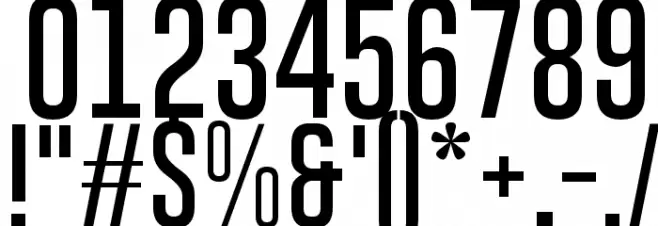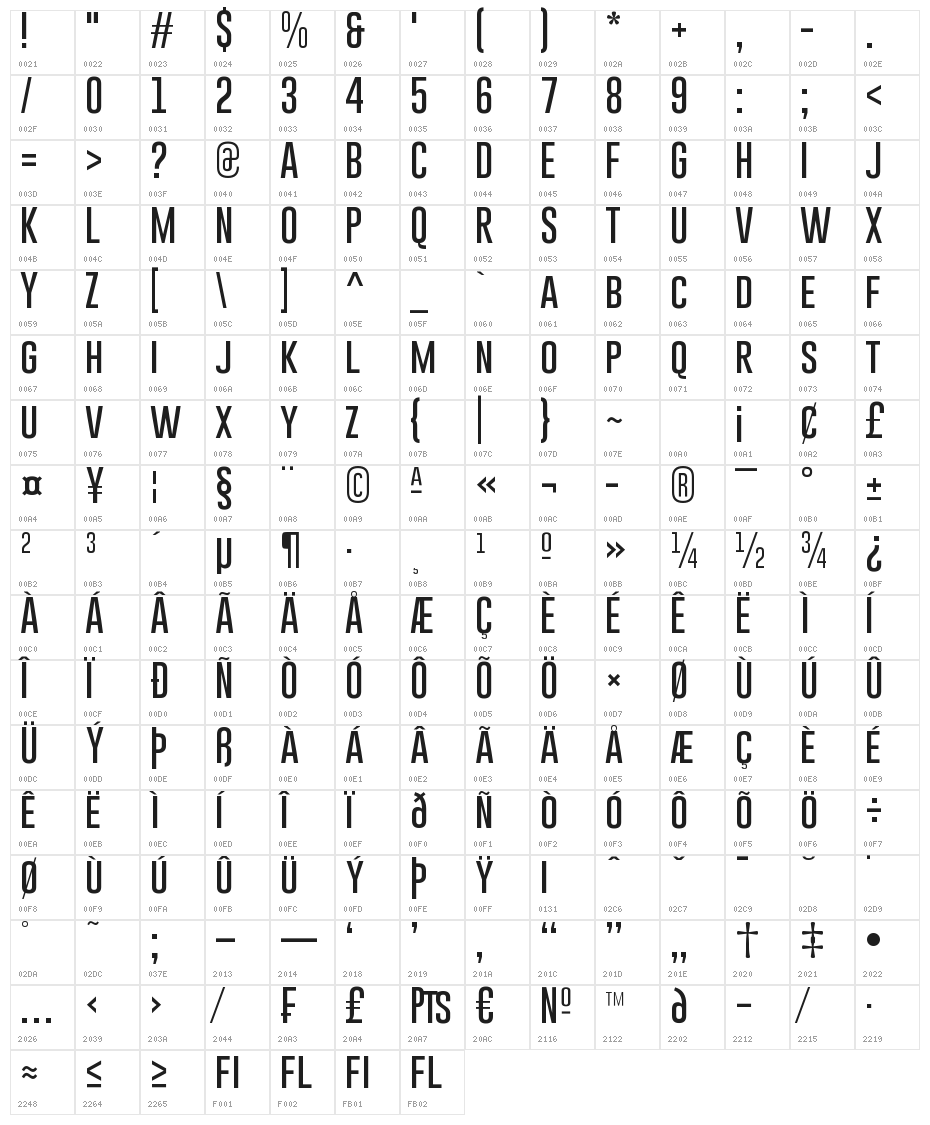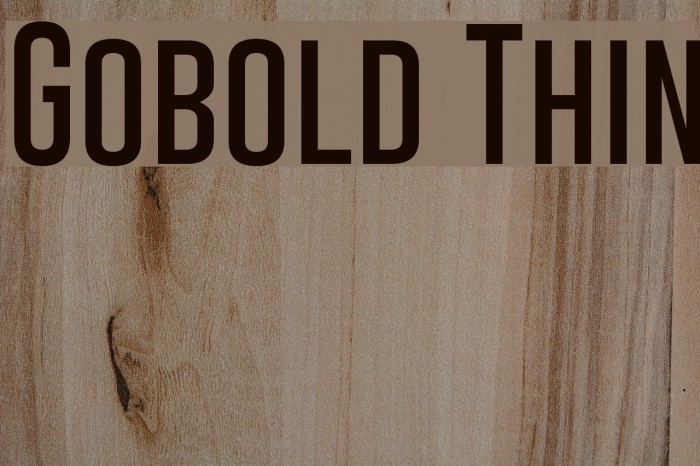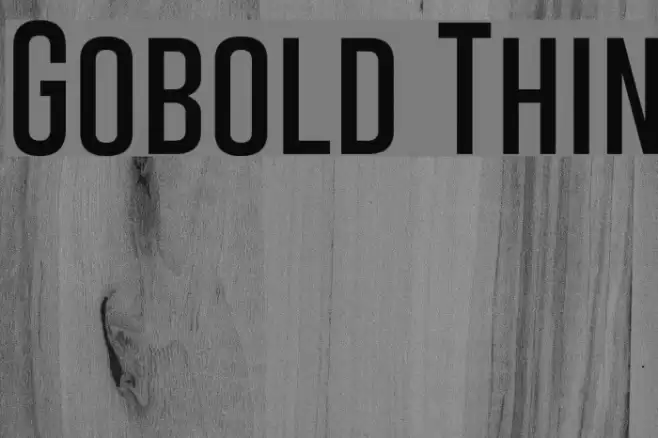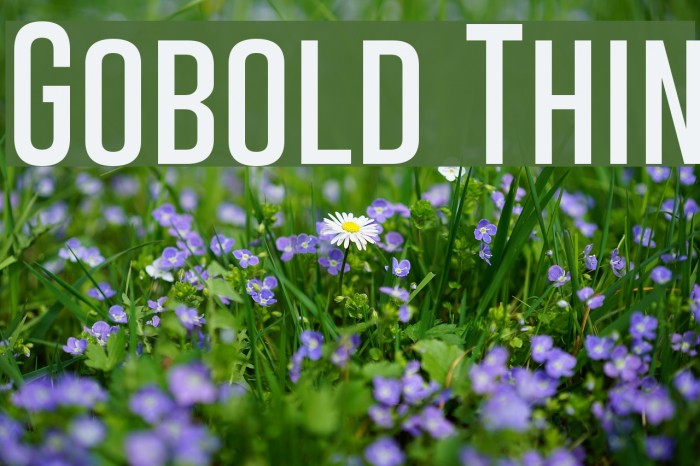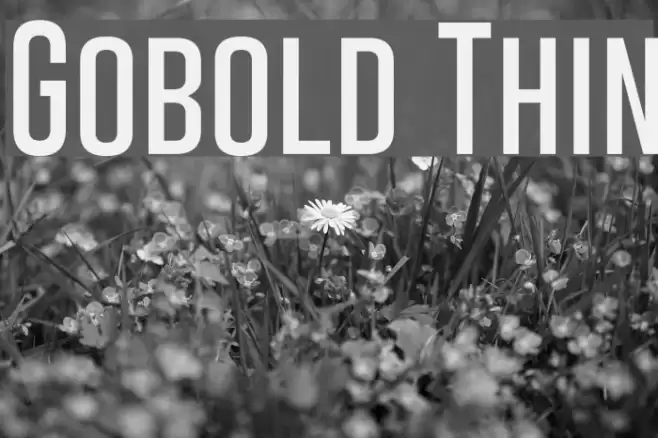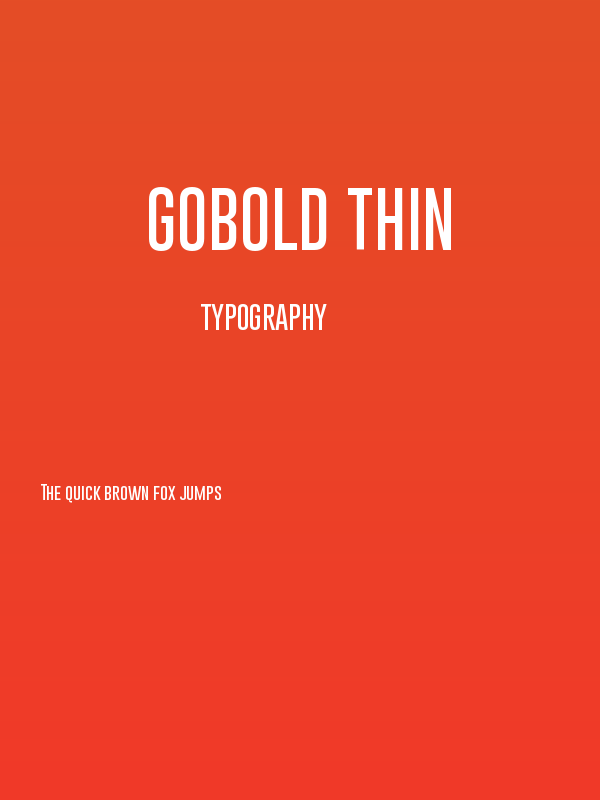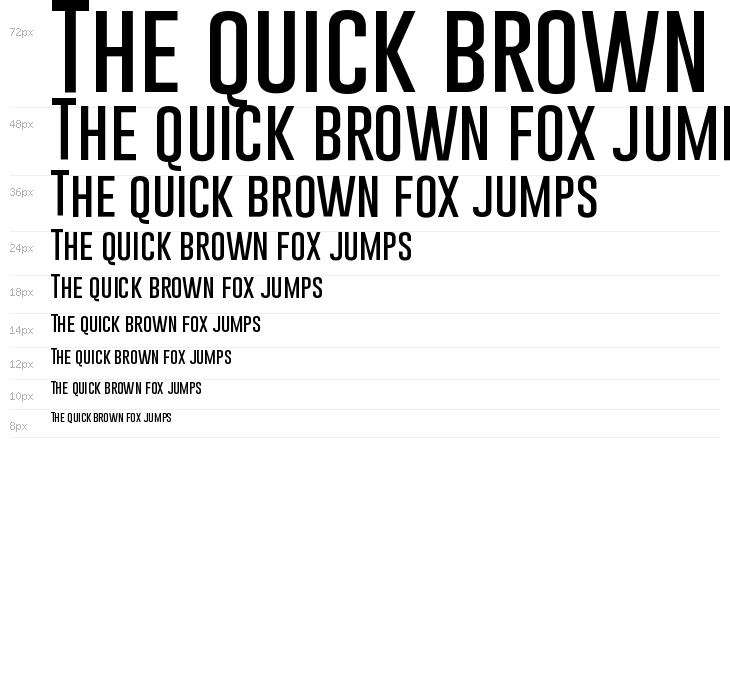
Gobold Thin Font
Gobold Thin Description
This font features a clean, modern sans-serif style with a thin weight, offering a sleek and contemporary appearance. The characters are tall and narrow, providing a condensed look that is both stylish and efficient in space usage. The uniform stroke width across all characters contributes to a minimalistic and professional aesthetic. The font includes a full set of uppercase and lowercase letters, numerals, and a variety of special characters, making it versatile for different design needs. Its geometric shapes and straight lines enhance readability while maintaining a distinctive visual appeal.
| Proposed Projects | Ideal for branding, advertising, headlines, and modern web design projects. |